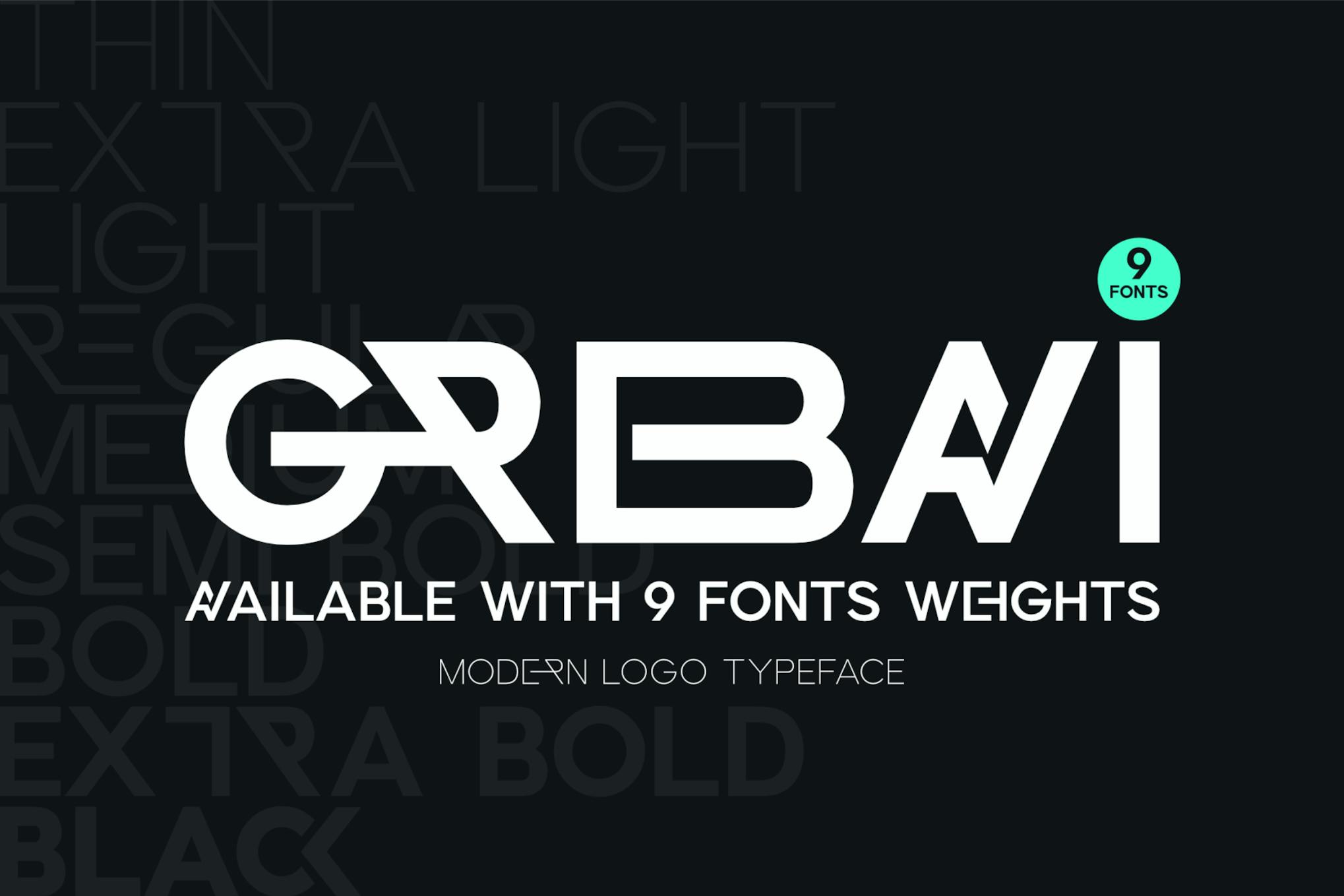
Grebavi | Modern Logo Typeface Font
The Grebavi | Modern Logo Typeface Font is perfect for innovative tech company logos, sleek startup branding, contemporary corporate identities, modern app interface design, cutting-edge product packaging, progressive architectural signage, sophisticated digital platforms, avant-garde fashion labels, futuristic automotive branding, and advanced technology communications.
What makes the Grebavi | Modern Logo Typeface Font so exciting is its revolutionary fusion of geometric precision with contemporary design innovation that creates a distinctive visual language perfect for forward-thinking brands demanding cutting-edge typography. This exceptional typeface features unique letterform construction, modern proportional systems, and innovative character details that establish an unmistakable contemporary aesthetic ideal for brands seeking to communicate innovation, sophistication, and design leadership. The font's modern personality and logo-optimized design make it an outstanding choice for companies seeking to project technological advancement, creative excellence, and contemporary professionalism with memorable brand presence.
The Grebavi | Modern Logo Typeface Font family includes comprehensive styling options, featuring multiple weight variations from Thin to Black, condensed and extended versions, plus stylistic alternates. Each variation maintains the signature modern appeal while offering different levels of visual impact and brand flexibility, providing designers with complete typographic control for creating distinctive logo systems and contemporary brand hierarchies.
The sophisticated design engineering of Grebavi | Modern Logo Typeface Font demonstrates master-level modern typography craftsmanship, with each character optimized for perfect logo scalability, brand recognition, and visual harmony across all contemporary applications. The font's extensive character set includes international language support, logo-optimized spacing, modern symbols, and contemporary punctuation, ensuring seamless integration into global branding projects and international business operations.
Expertly engineered for logo and branding excellence, this remarkable font maintains perfect clarity and brand consistency across all platforms, sizes, and digital environments. From detailed mobile applications to large-scale corporate installations, Grebavi | Modern Logo Typeface Font performs flawlessly while preserving its distinctive modern character and contemporary brand sophistication.